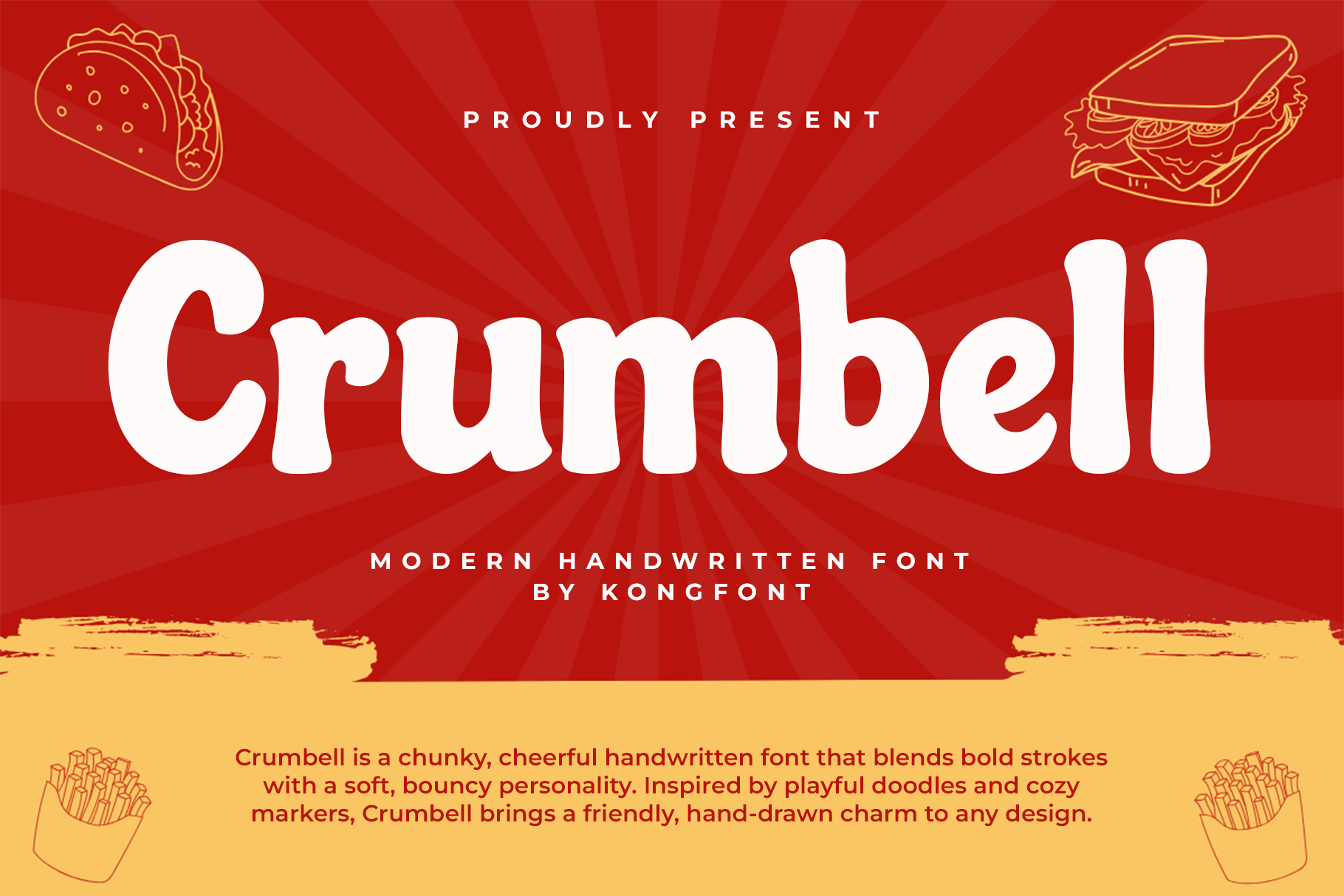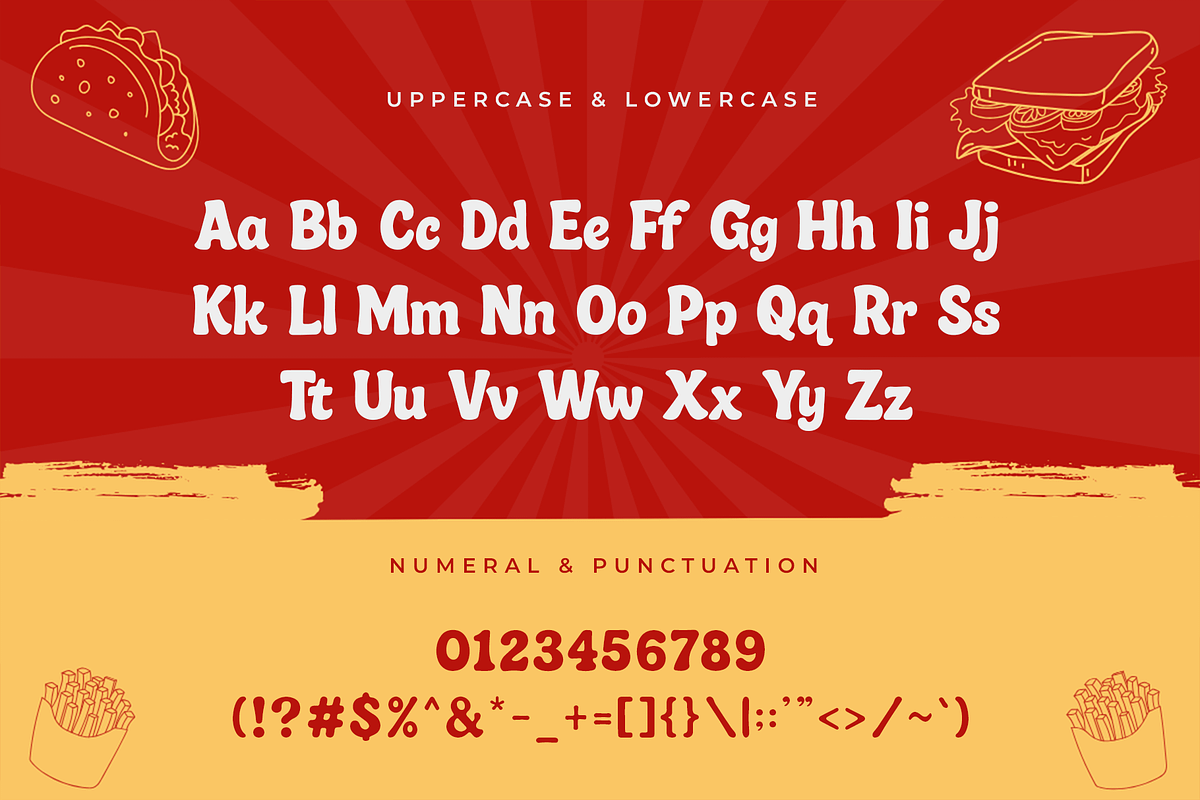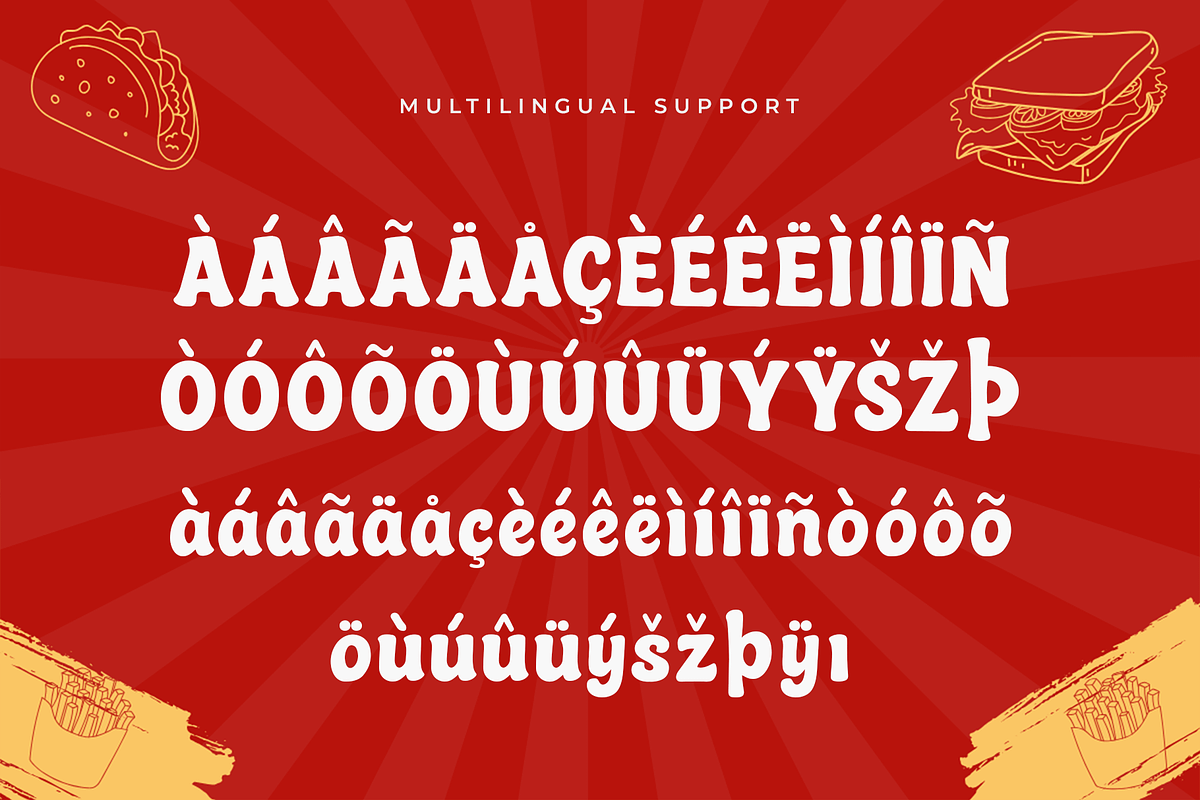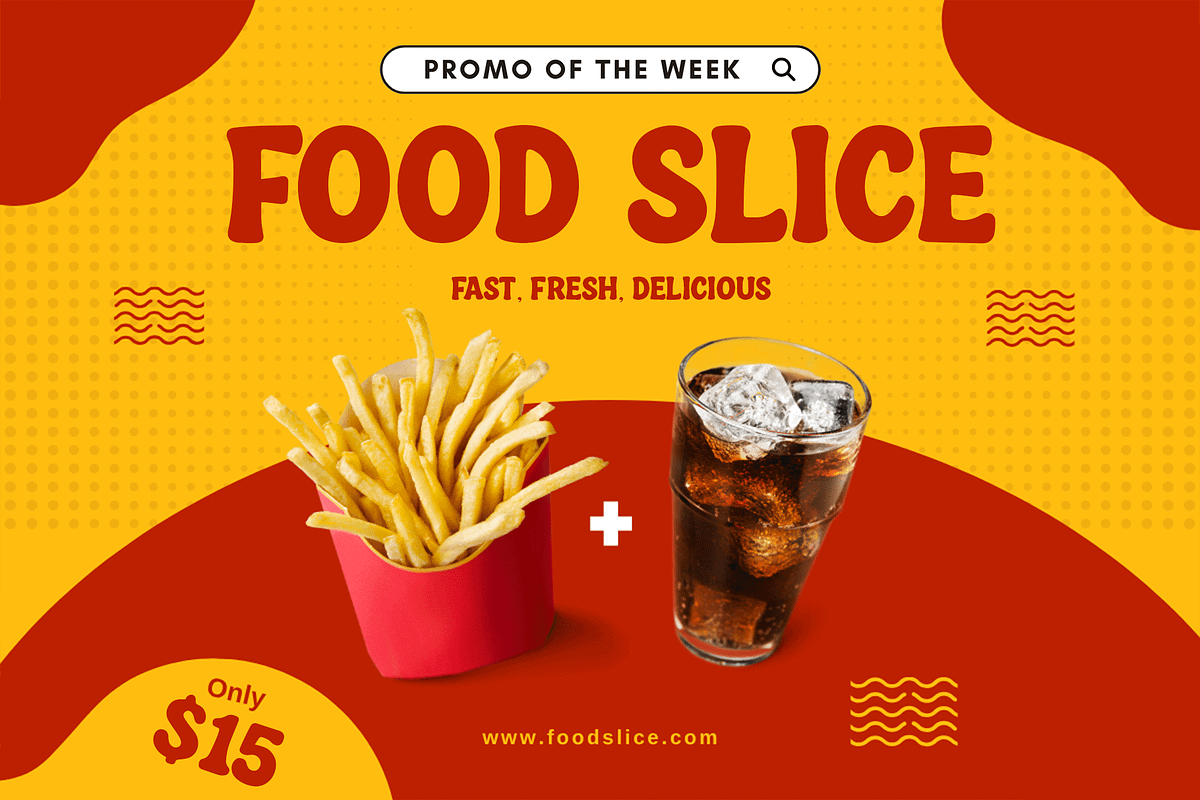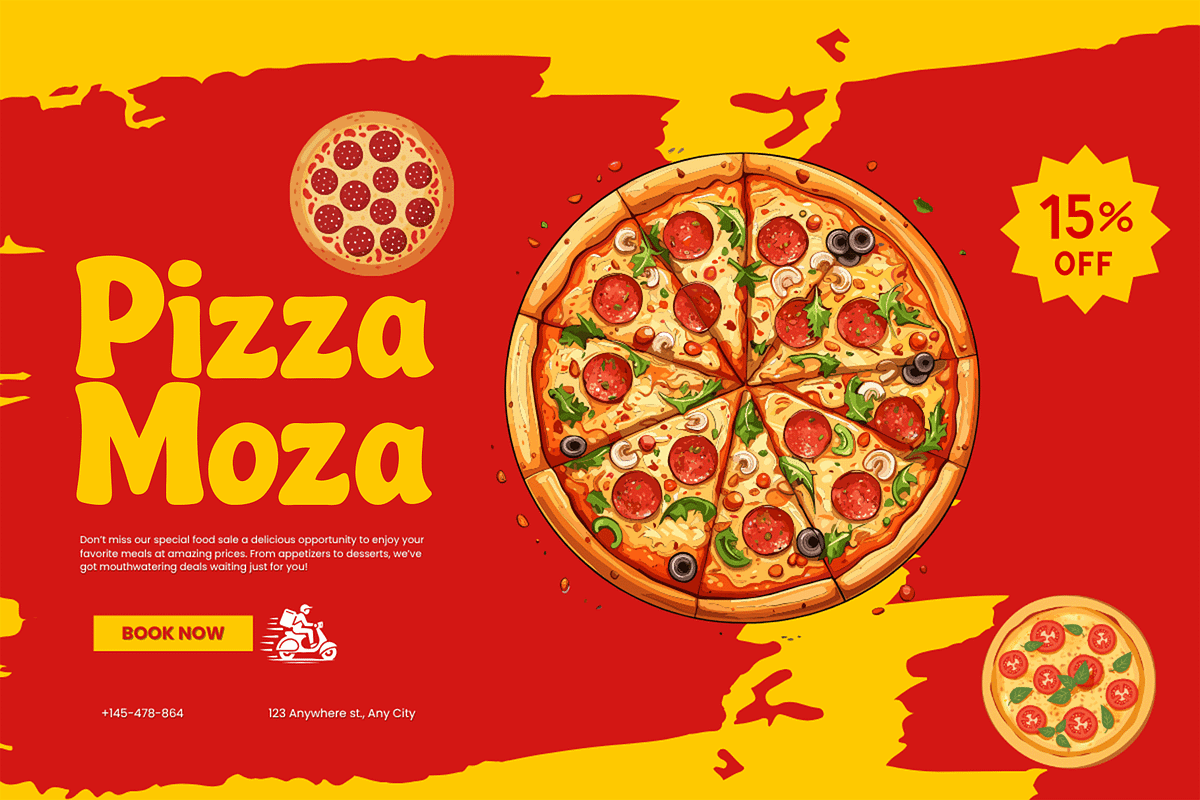
Crumbell – Modern Handwritten Font
Crumbell is a modern handwritten font that brings warmth and personality to your creative projects. With smooth curves, natural flow, and a relaxed feel, Crumbell captures the look of effortless handwriting perfect for invitations, social media posts, branding, logos, packaging, and personal notes.
Its versatile style balances elegance and informality, making it ideal for both professional and playful uses. Give your designs a handwritten soul with Crumbell.